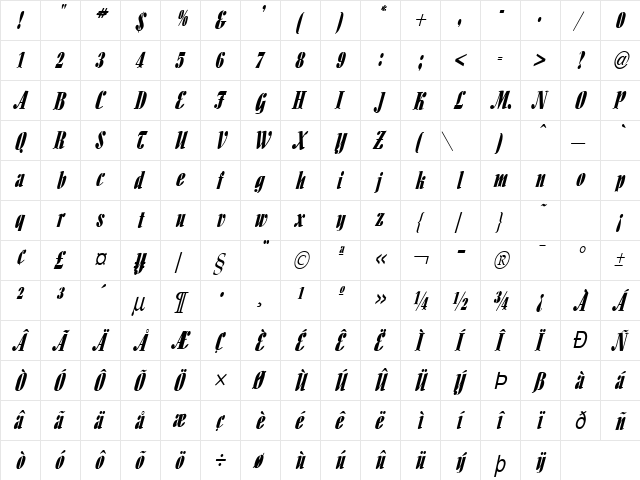
Aloe-Condensed Italic Font Preview
Design Context for Aloe-Condensed Typeface
Aloe-Condensed is a composed and adaptable typeface that performs quietly and consistently across a wide range of design contexts. Its italic angle brings a sense of urgency and motion to the letterforms. The condensed width makes it efficient for tight spaces without sacrificing legibility.
Pro Tip: Try Aloe-Condensed for annotation and caption copy alongside an upright companion — the contrast in angle creates a dynamic but ordered typographic system.